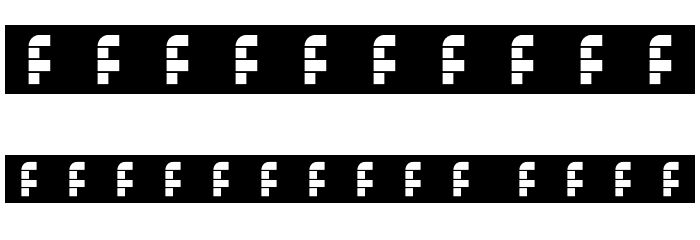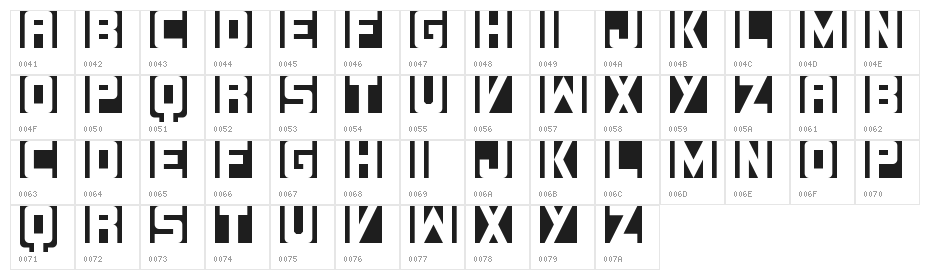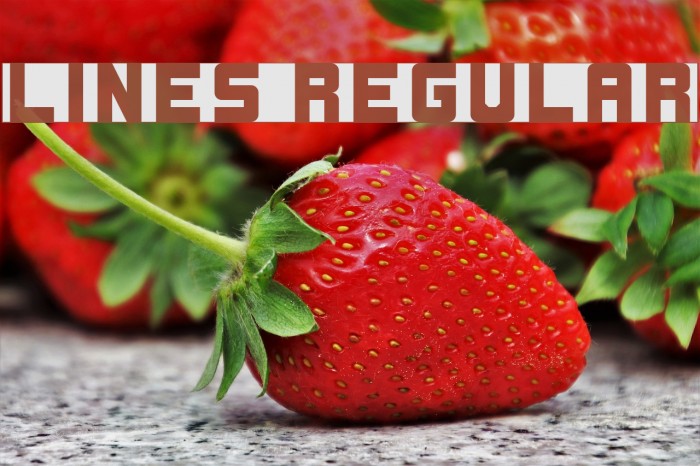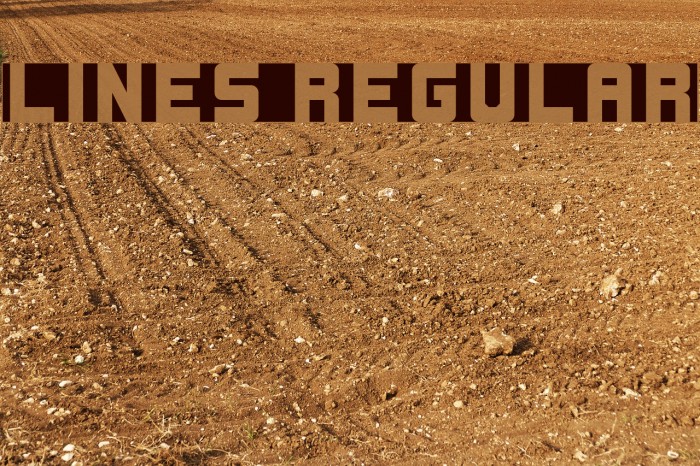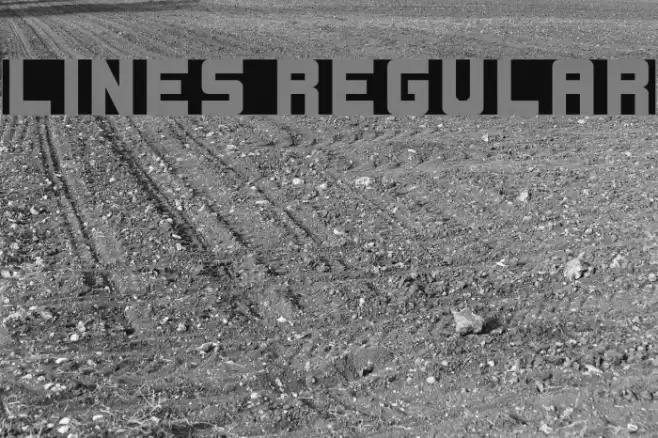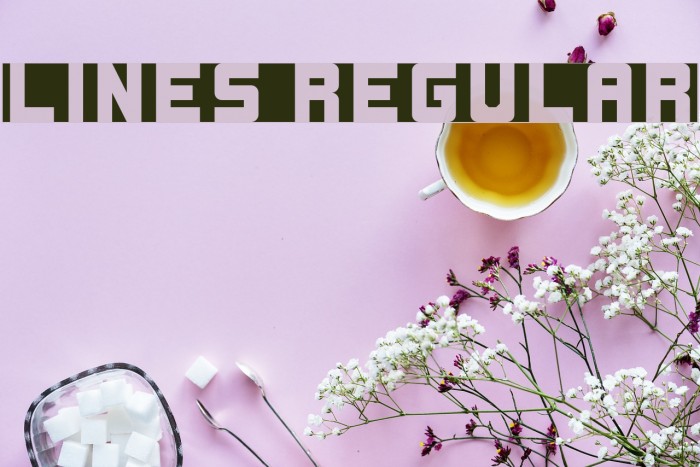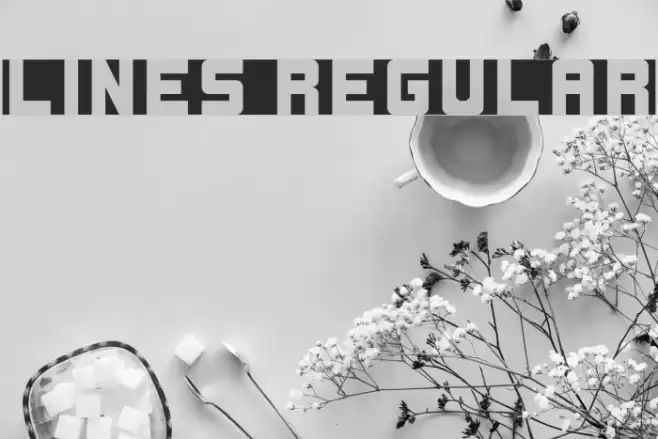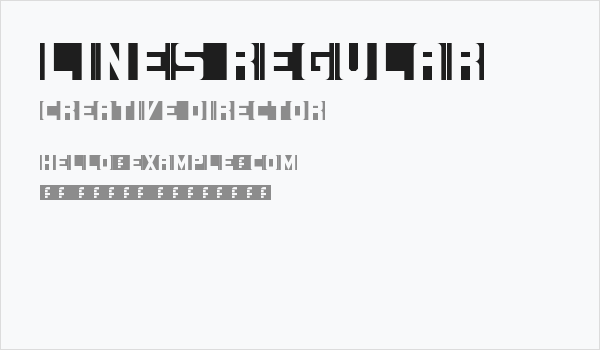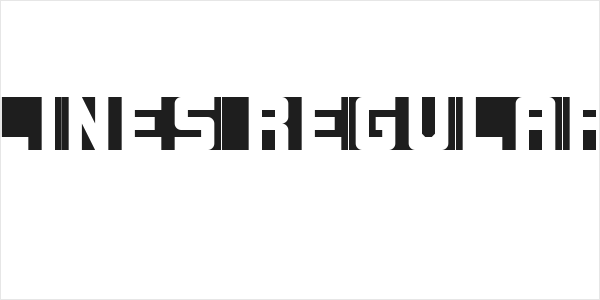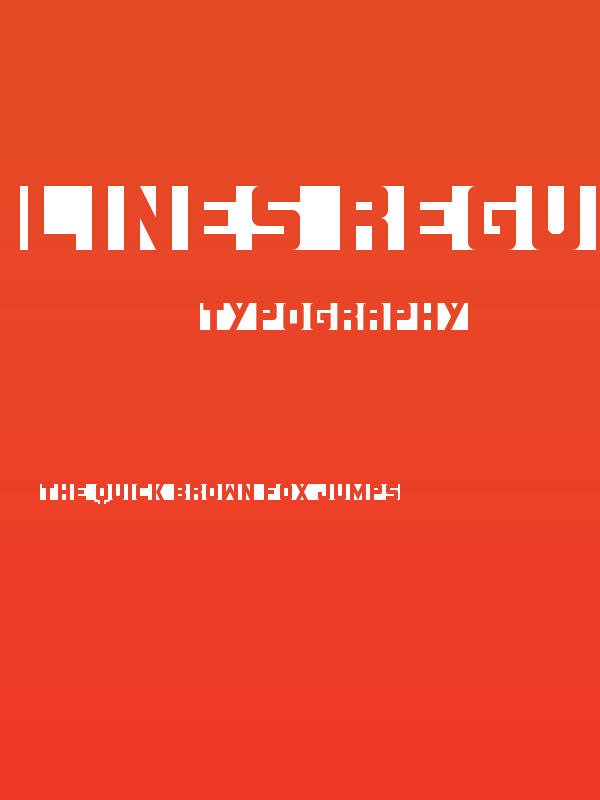
Lines Regular Font
Lines Regular Description
This font features a bold, geometric design with a strong emphasis on angular shapes and sharp edges. The characters are constructed with a series of lines and blocks, creating a modern and industrial aesthetic. The uppercase letters are particularly striking, with a uniform height and width that gives them a monospaced appearance. The lowercase letters maintain the same geometric style, ensuring consistency across the typeface. Numbers and special characters are designed to match the bold and structured look of the alphabet. Overall, this font conveys a sense of strength and precision, making it suitable for projects that require a contemporary and impactful visual presence.
| Proposed Projects | Ideal for branding, posters, headlines, and any design project that requires a strong, modern look. |